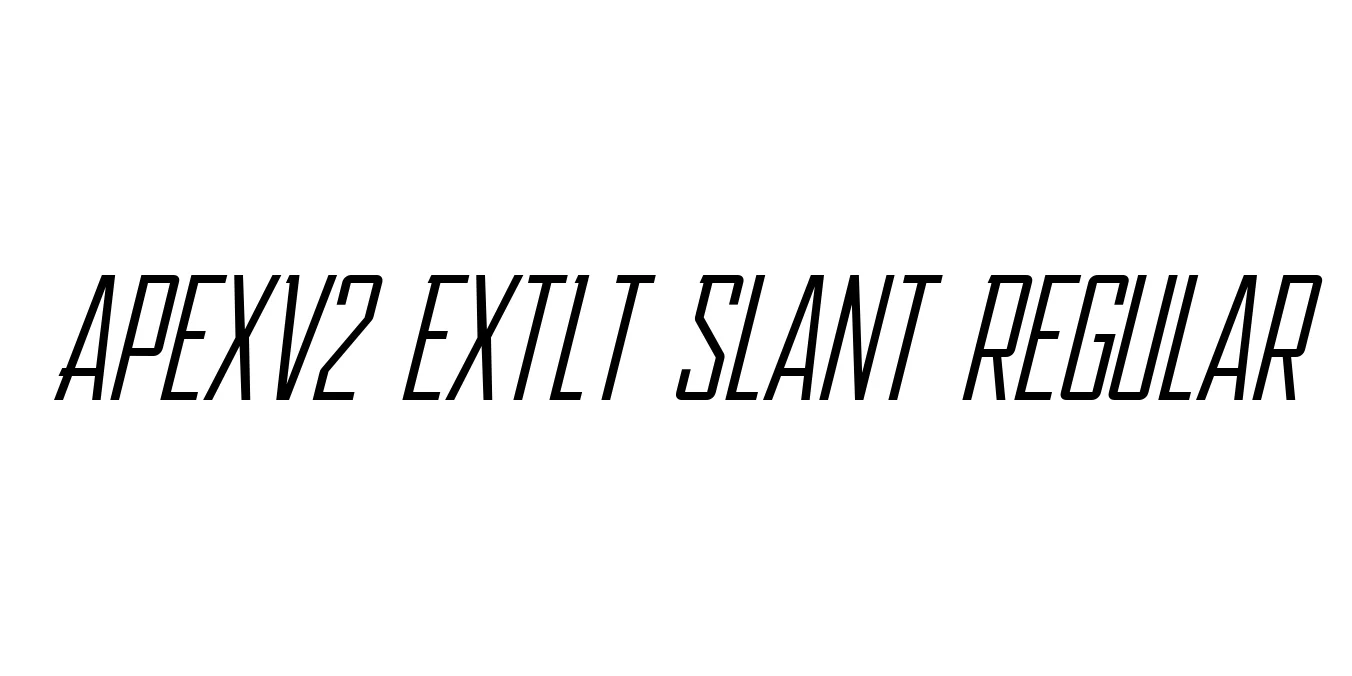
ApexV2 ExtLt Slant Regular
Designed by Jeremy Nelson
ApexV2 ExtLt Slant Regular is a precision-engineered geometric sans-serif typeface that evolves from the original Apex Mark 2 family. Characterized by its sharp angles and technical rigidity, it draws inspiration from industrial manufacturing and classic athletic block typography, making it an excellent choice for designs that require a sense of structure and modernity.
The Extra Light Slant variant specifically offers a sophisticated, airy aesthetic that balances minimalism with a dynamic forward-leaning motion. This weight is particularly effective for high-end digital interfaces, sleek editorial layouts, and branding projects where a futuristic and clean visual language is essential.
ApexV2 ExtLt Slant Regular Best Uses
Ideal for startups and technology companies looking for a precise, futuristic corporate identity.
Perfect for dynamic headlines, team logos, and energetic sports-related graphic design.
Great for clean, sophisticated headers and navigation elements in mobile apps and web dashboards.
Adds a high-fashion or architectural feel to magazine mastheads and feature titles.